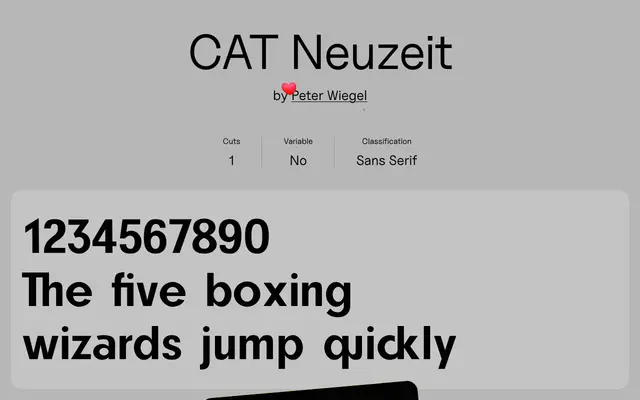
CAT Neuzeit
A single-cut revival of the Neuzeit grotesque by Peter Wiegel, released under the SIL Open Font License for free commercial use.
Peter Wiegel's interpretation of the Neuzeit grotesque, a mid-century German sans-serif with geometric underpinnings. Available in one cut with no variable axis, italic or condensed variants, making it a minimal but functional offering. The SIL Open Font License permits commercial use, modification and redistribution.
Classified as Sans Serif on the page; the Neuzeit lineage places it firmly in the grotesque tradition, with geometric influences typical of mid-century German sans-serifs.